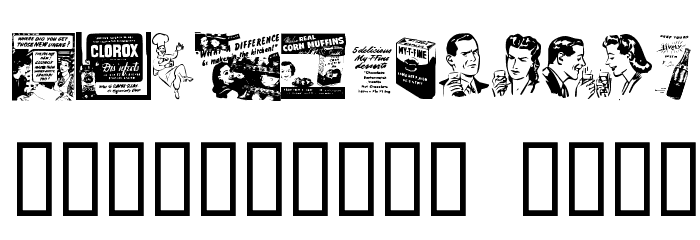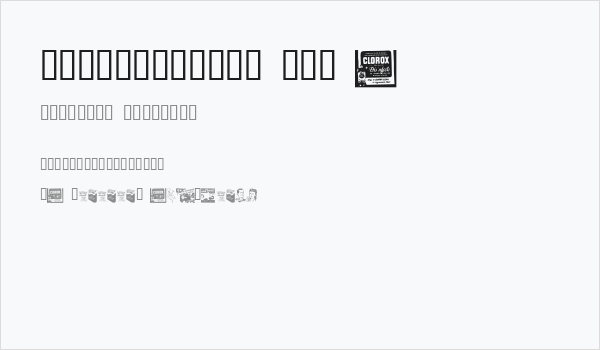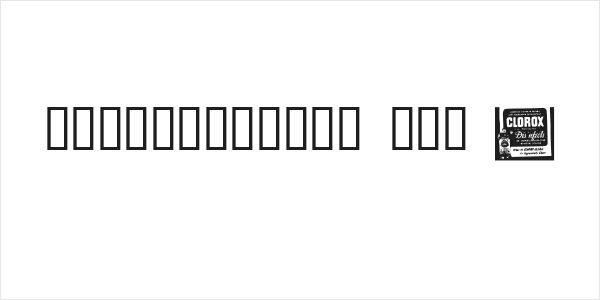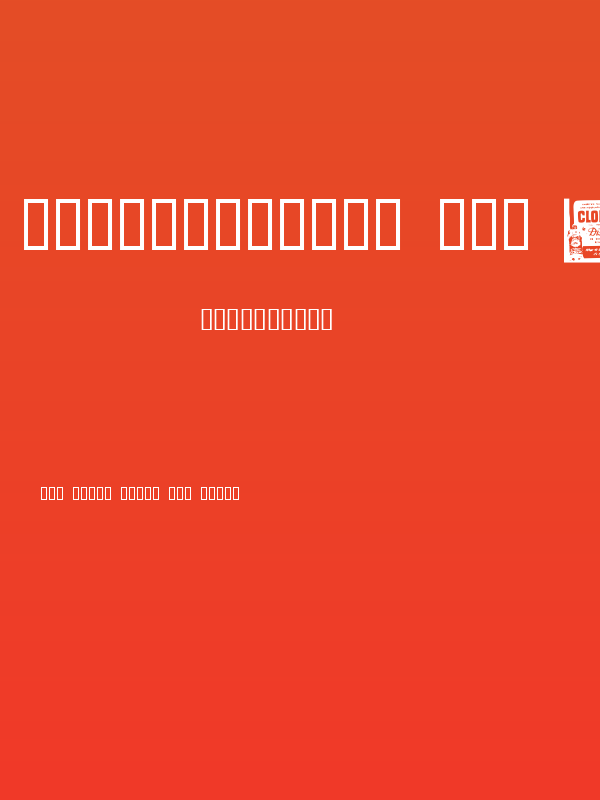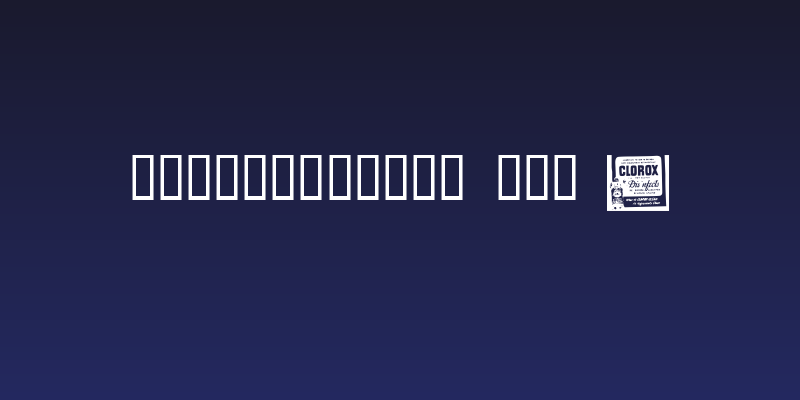
OldTimeDings Set 1 Font
OldTimeDings Set 1 Description
This set features a collection of vintage dingbats that capture the essence of mid-20th-century advertising and illustration styles. The images include retro advertisements, classic product packaging, and stylized illustrations of people and products. Each character is a unique graphic, reminiscent of old-time print ads, with a focus on bold lines and high contrast. The designs evoke a sense of nostalgia, making them ideal for projects that aim to capture a retro or vintage aesthetic. The graphics are detailed and expressive, providing a rich visual experience.